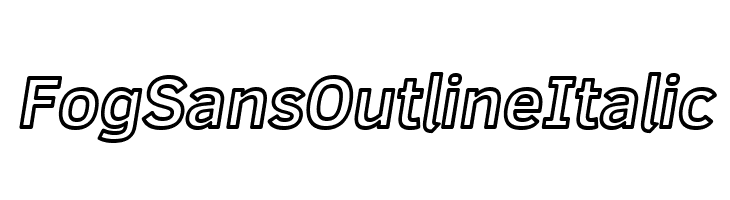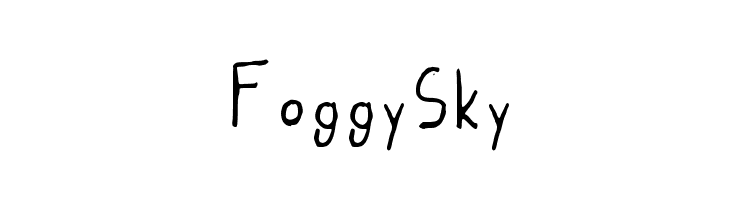
A bold, modern sans-serif font with excellent legibility and uniform stroke width.
A modern, italic sans-serif font with a clean and dynamic style.
A modern sans-serif outline font with clean lines and balanced proportions.
A modern sans-serif outline font with an italic style, offering a clean and dynamic look.
A playful, handwritten font with rounded edges and a casual, friendly style.
A playful, handwritten font with irregular strokes and a casual, organic feel.
A classic serif font with elegant, sharp serifs and balanced stroke contrast.
A rustic, hand-drawn font with uneven edges and a natural feel.
A classic serif font with high contrast and elegant curves.
An abstract, decorative design with swirling lines and geometric shapes.